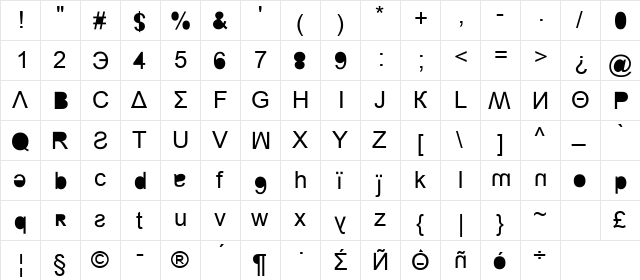
Nowa arial style Normalny
Nowa arial style offers clean, dependable letterforms without strong stylistic allegiance, making it a practical choice for designers who need flexibility.
Pro Tip: Use Nowa arial style in both headline and body roles to test its range before committing to a single application.